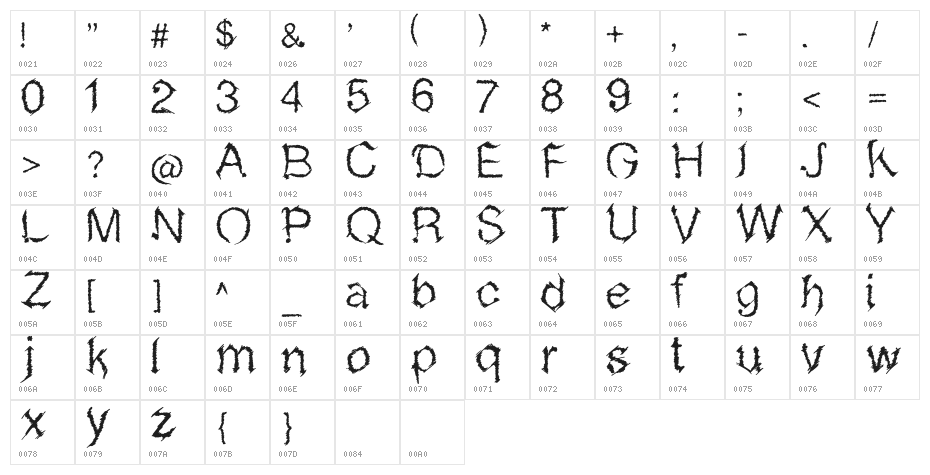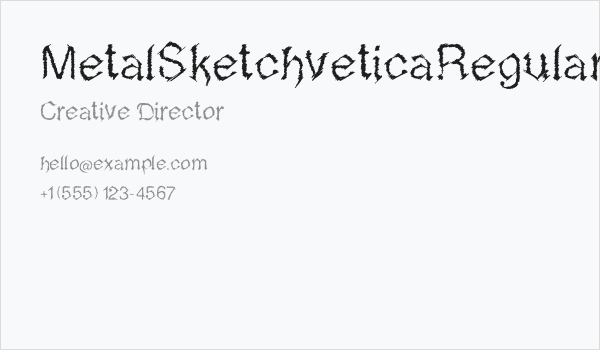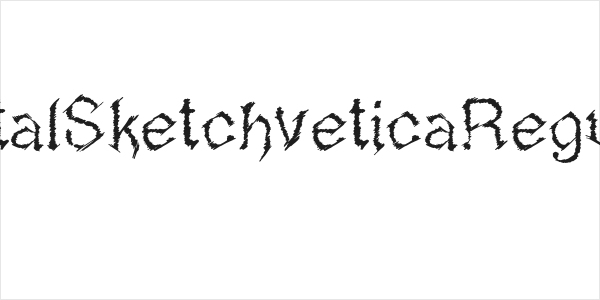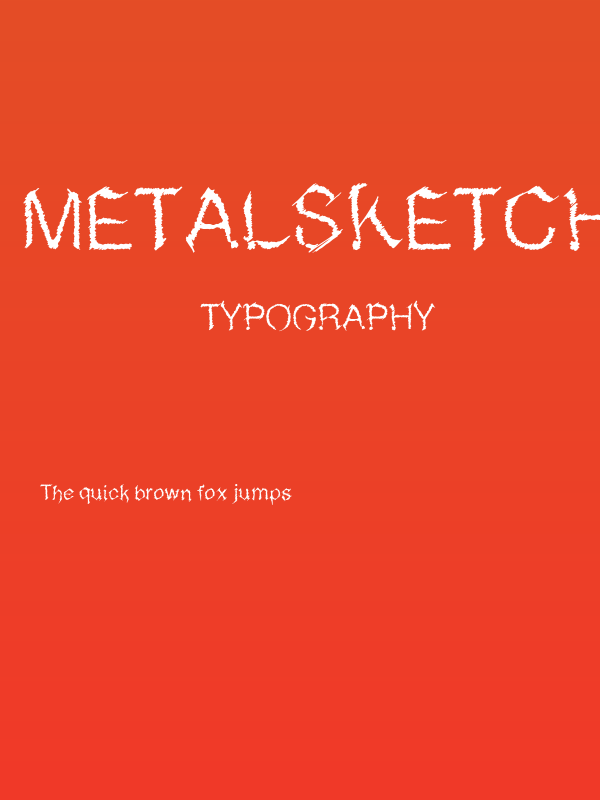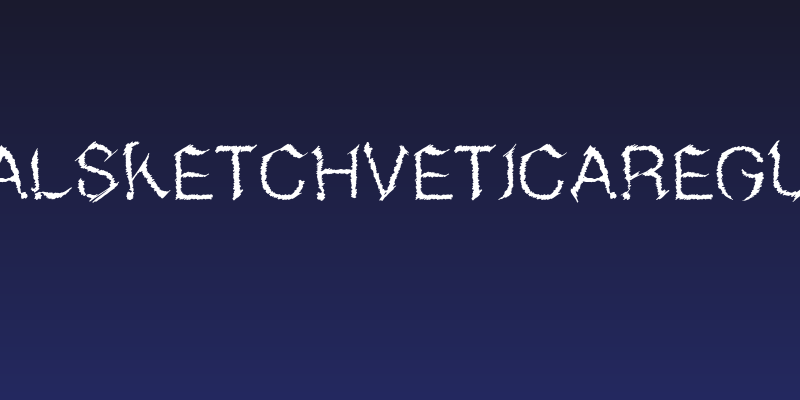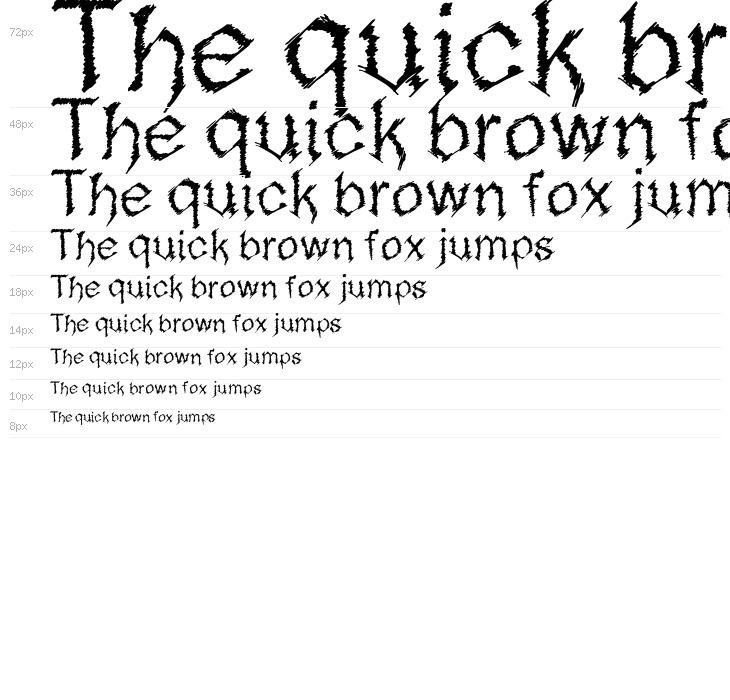
MetalSketchveticaRegular Font
MetalSketchveticaRegular Description
This font features a rugged, jagged style reminiscent of metal textures, giving it a bold and edgy appearance. The characters are sharply defined with irregular edges, creating a dynamic and energetic look. The uppercase and lowercase letters maintain a consistent style, while the numbers and special characters follow the same jagged theme. This font's unique design makes it stand out, offering a distinctive aesthetic that is both modern and raw.
| Use Case | Logos, Posters, Album covers |
| Proposed Projects | Ideal for music album covers, posters, branding for extreme sports, or any project needing a bold, edgy aesthetic. |